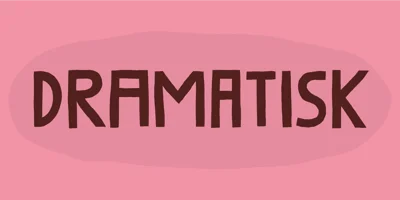
Dramatisk Font
Dramatisk Font is perfect for theater company branding, dramatic film productions, intense concert posters, powerful book covers, emotional advertising campaigns, bold fashion magazines, passionate art exhibitions, striking entertainment venues, and captivating social media content. This commanding typeface brings theatrical intensity and dramatic sophistication to both digital and print design applications.
Dramatisk Font is exciting because it embodies the powerful emotion and compelling intensity of theatrical drama, making it an exceptional choice for designers who want to convey dramatic impact with authentic theatrical appeal. Its bold letterforms and intense character provide the perfect combination of dramatic elegance and emotional functionality, ensuring your projects communicate passion, intensity, and dramatic excellence that resonates with audiences seeking genuine emotional experiences and powerful storytelling.
The Dramatisk Font family includes dramatic weight variations and theatrical elements, featuring regular, bold, and extra bold weights with complementary intense styles, passionate ligatures, and dramatic decorative flourishes. Each style maintains consistent theatrical aesthetics while offering flexibility for different emotional applications, allowing designers to create powerful visual systems that reflect dramatic values and theatrical sophistication.
Whether you're designing for entertainment brands, artistic organizations, or dramatic projects, Dramatisk Font delivers authentic theatrical appeal and dramatic sophistication that connects with audiences seeking genuine emotional experiences and powerful artistic expression. This premium typeface offers designers the dramatic intensity and theatrical elegance needed to create designs that communicate emotional depth, passionate storytelling, and dramatic authenticity effectively. The font's compelling character makes it perfect for theatrical branding, dramatic campaigns, and intense applications where authentic emotional credibility is essential. Download Dramatisk Font today and dramatize your creative projects with genuine theatrical sophistication and intense typography excellence that defines dramatic design standards.